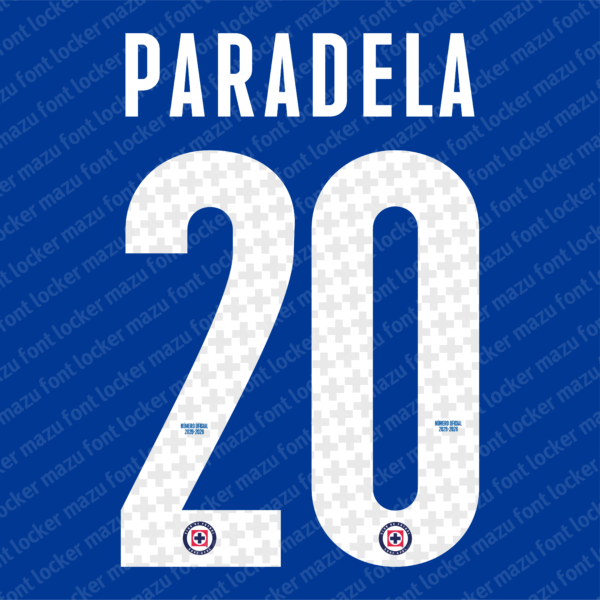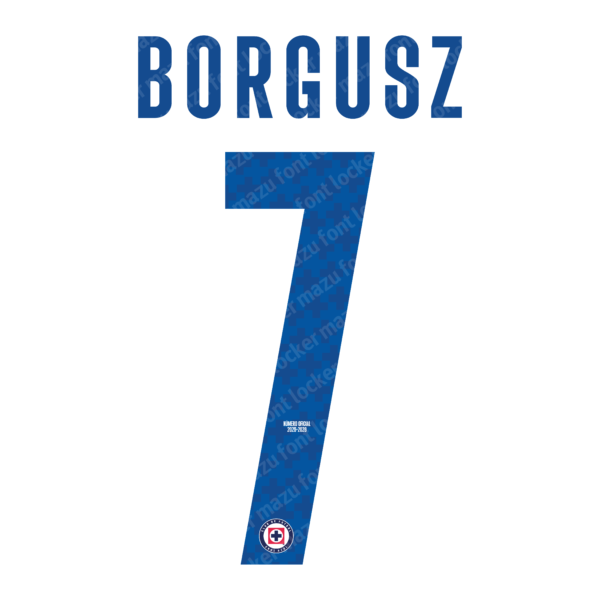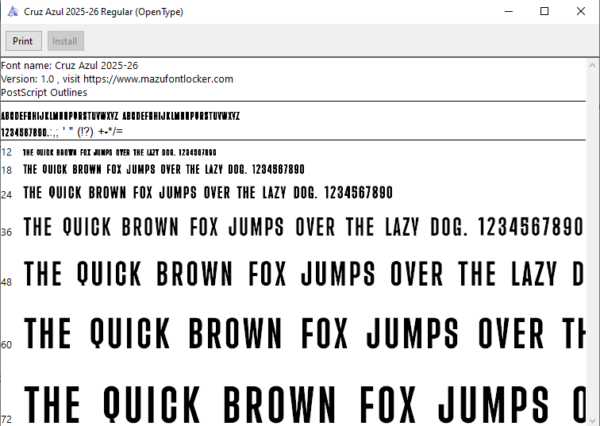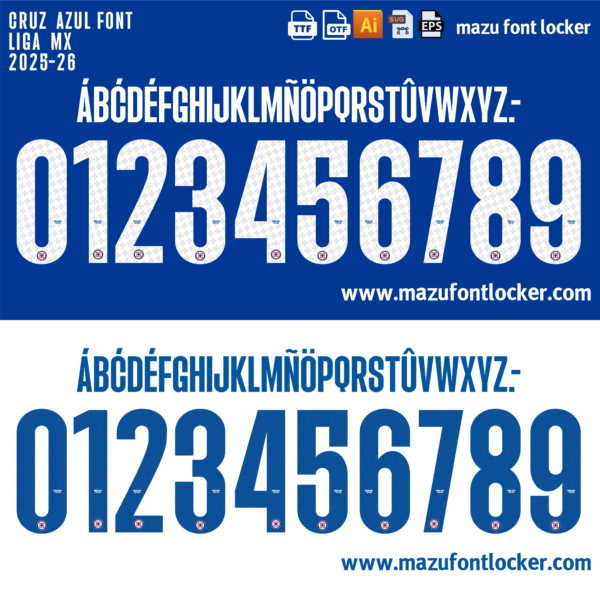
Cruz Azul 2025-26 Font Vector – Vibrant La Máquina Classic
Cruz Azul 2025-26 Font is a high-quality football jersey font vector designed to replicate the official lettering and numbering style used during the 2025-26 season. This Cruz Azul 2025-26 font is perfect for designers, football fans, and creators who want accurate and professional jersey customisation.
Inspired by the official kit of Cruz Azul, this Cruz Azul 2025-26 font delivers a clean and authentic match-day appearance. Every letter and number has been carefully recreated to match the real jersey design, ensuring your projects look realistic and professional.
Cruz Azul 2025-26 Font Vector – Authentic Jersey Lettering
Cruz Azul 2025-26 Font is a high-quality football jersey font vector created to replicate the official lettering and numbering style used during the iconic 2025-26 Season. Perfect for designers, football fans, and jersey customisation projects, this font set delivers an authentic and professional match-day appearance.
Inspired by the original Cruz Azul 2025-26 team kit, every letter and number has been carefully recreated to ensure accurate retro styling for both digital and print projects.
• Authentic 2025-26 Cruz Azul jersey lettering style
The authentic lettering style helps recreate the classic look of the Cruz Azul 2025-26 kit with professional accuracy.
Unlike generic jersey fonts, this set is designed with a strong focus on authenticity and accuracy. Every detail is based on the original match lettering style used during the 2025-26 season, helping designers and collectors create realistic football shirt designs.
This Cruz Azul 2025-26 font vector set is designed for authentic football jersey customization and works perfectly for retro football projects, collector designs, and professional sportswear artwork.